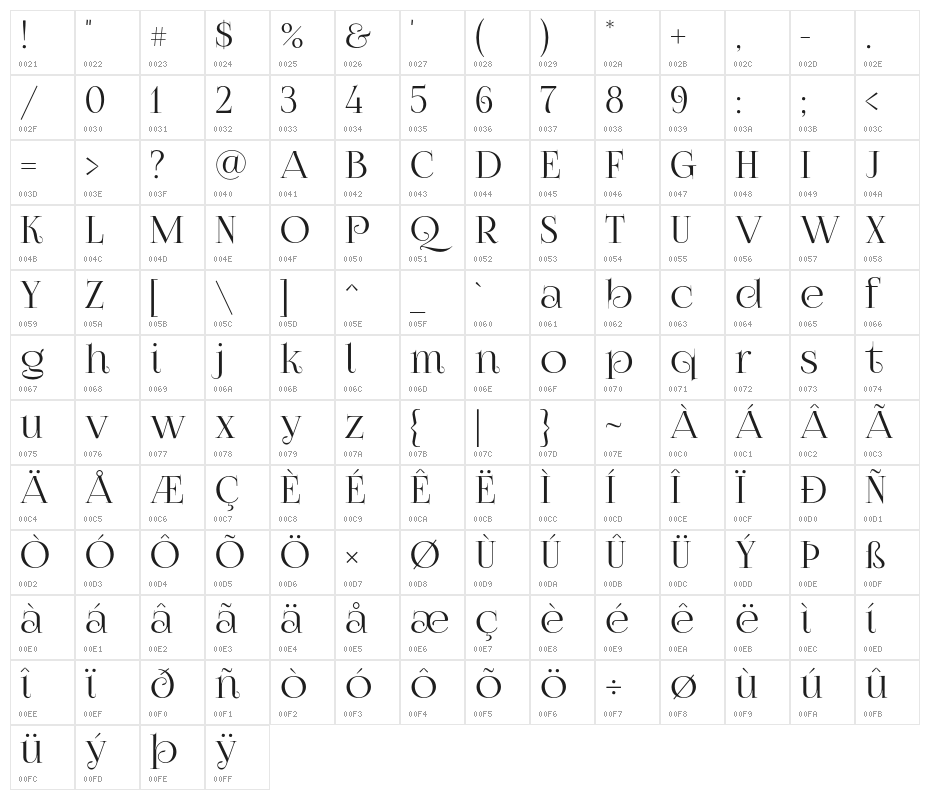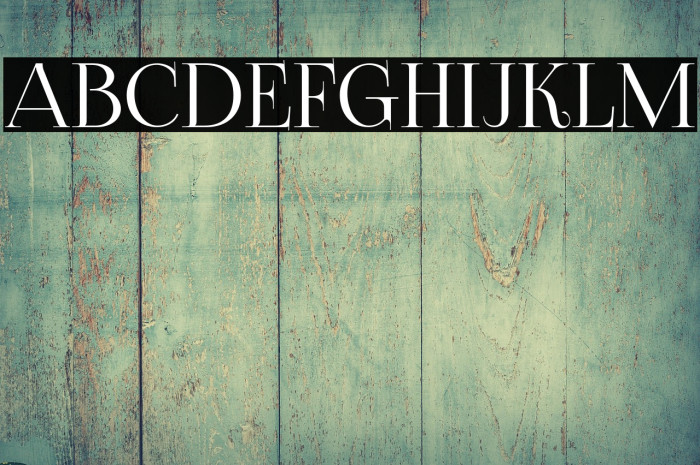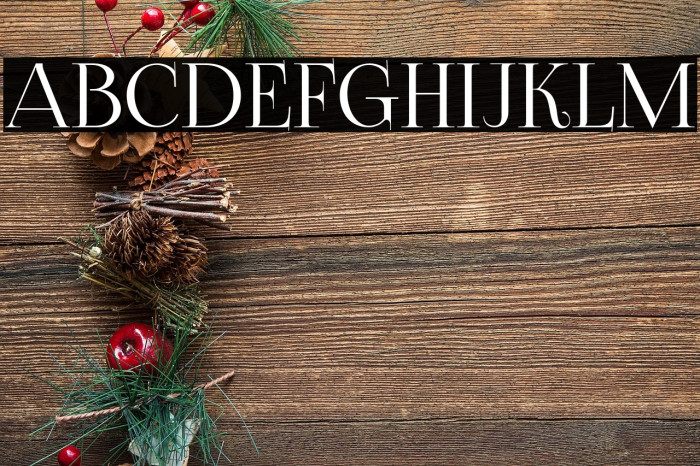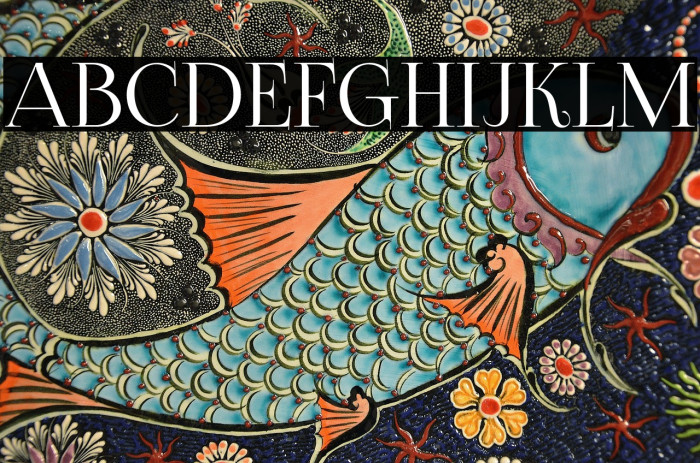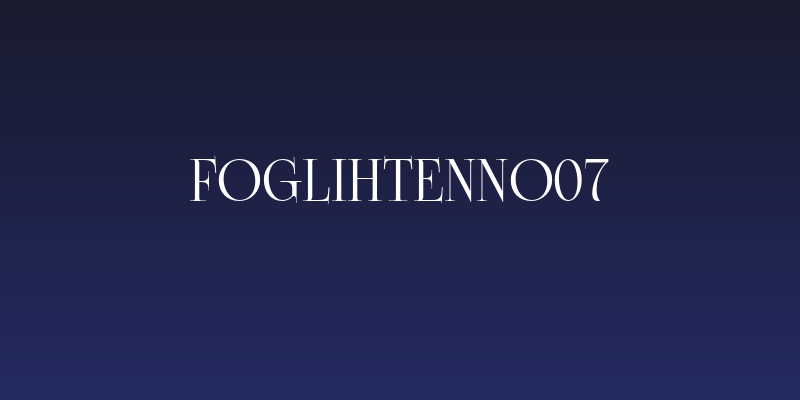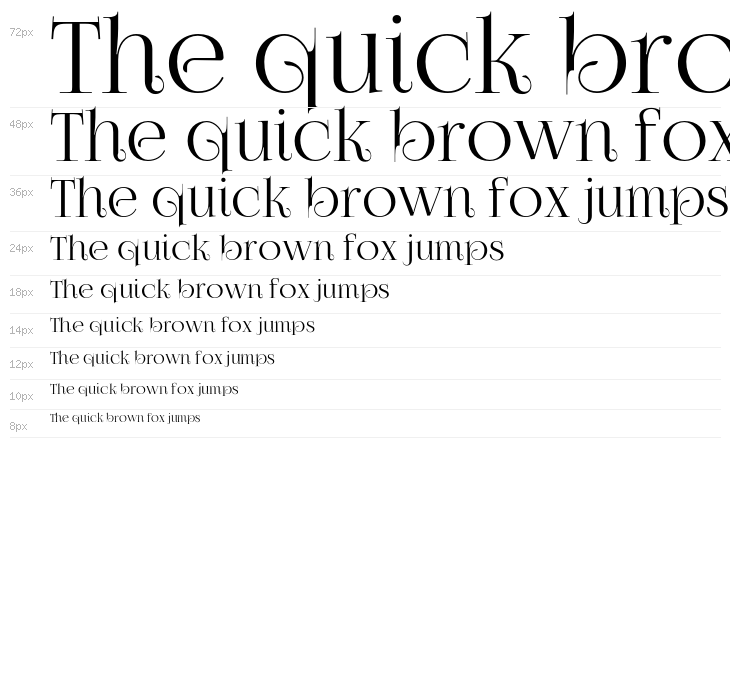
FoglihtenNo07 Font
FoglihtenNo07 Description
This font features a sophisticated and elegant design with a classic serif style. The characters exhibit a high contrast between thick and thin strokes, giving it a refined and stylish appearance. The serifs are sharp and pronounced, adding a touch of formality and tradition. The uppercase letters are tall and commanding, while the lowercase letters maintain a balanced and harmonious flow. The numerals are distinct and clear, ensuring readability. Special characters are crafted with the same attention to detail, making this font versatile for various applications.
| Use Case | Headlines, Logos, Editorial design |
| Proposed Projects | Ideal for luxury branding, editorial design, wedding invitations, and high-end product packaging. |